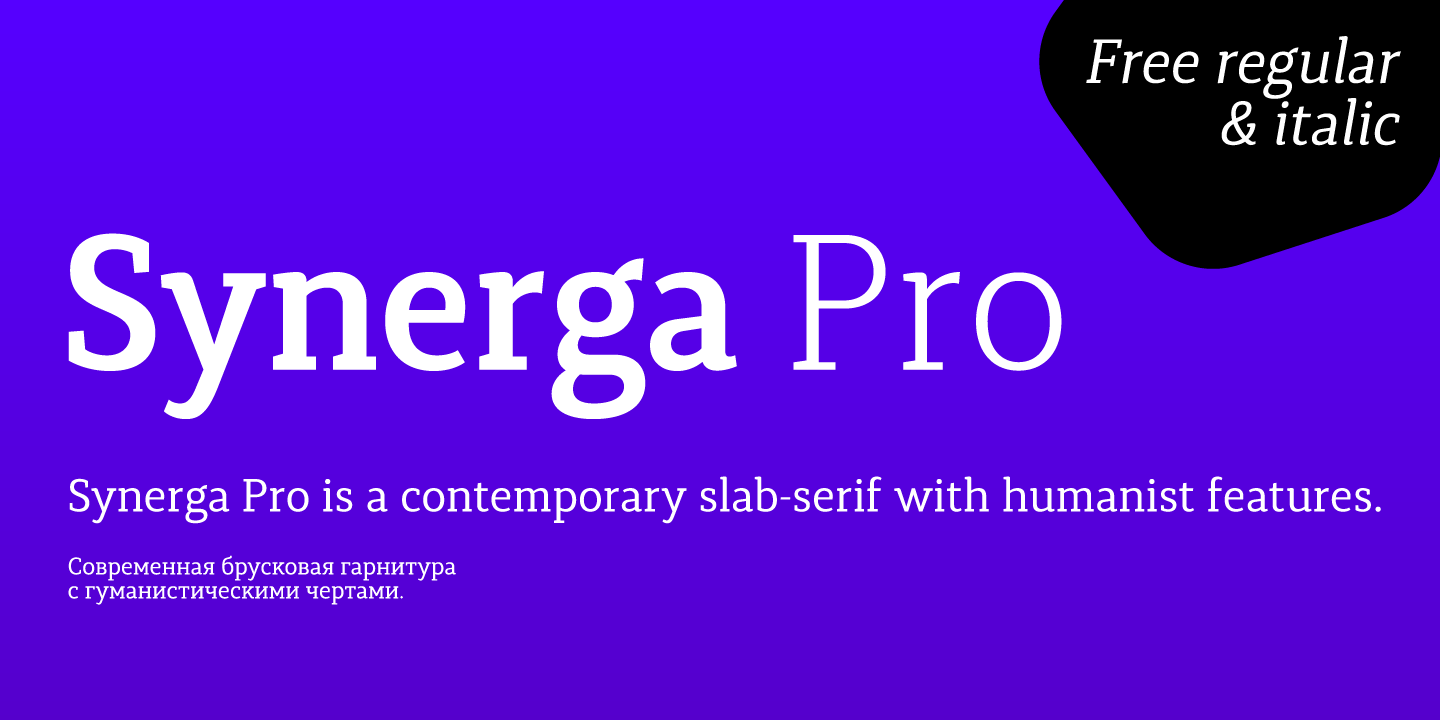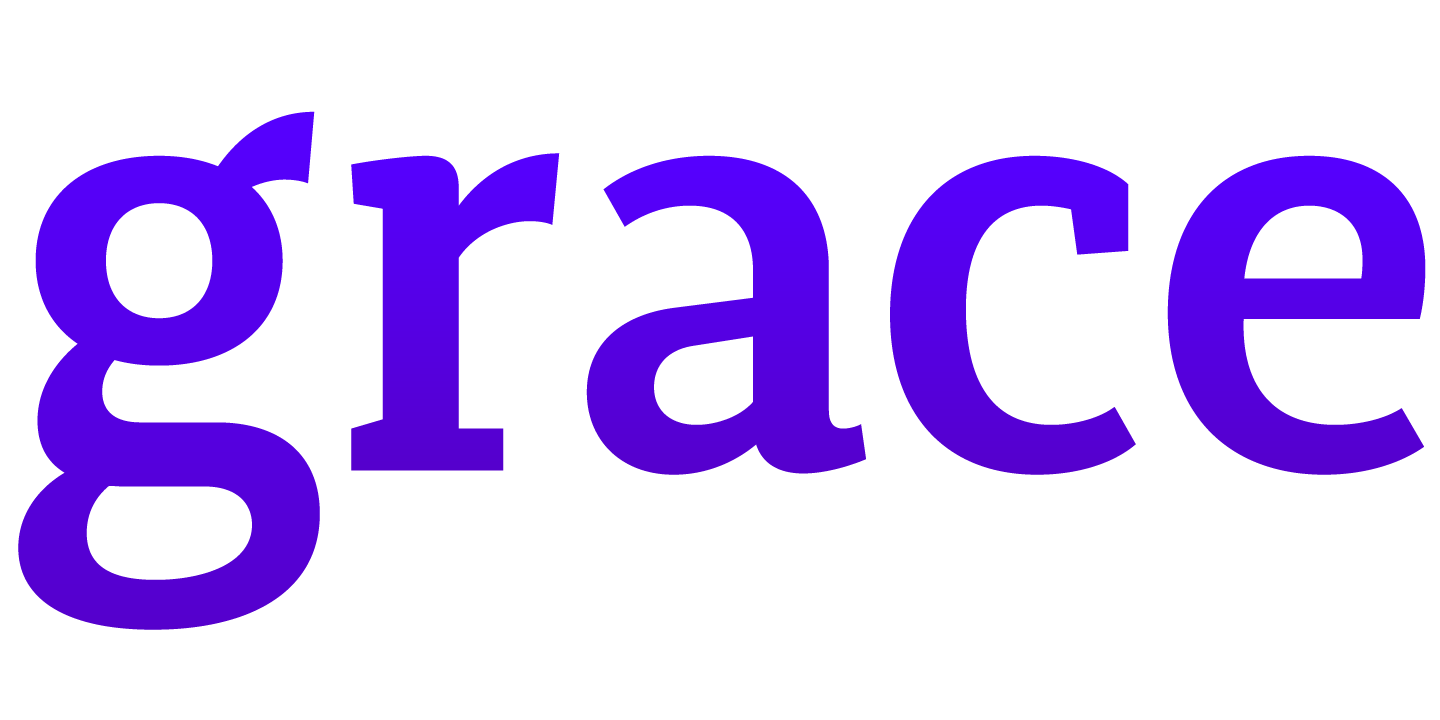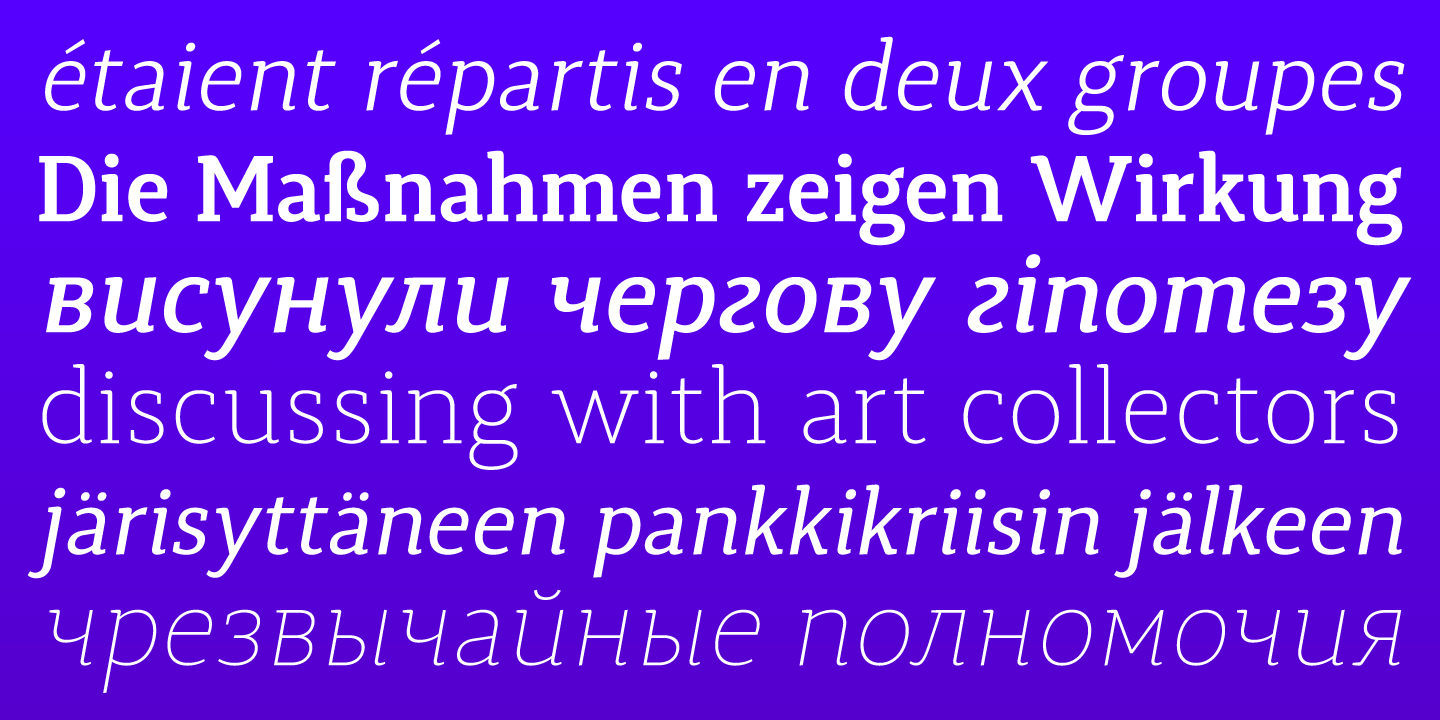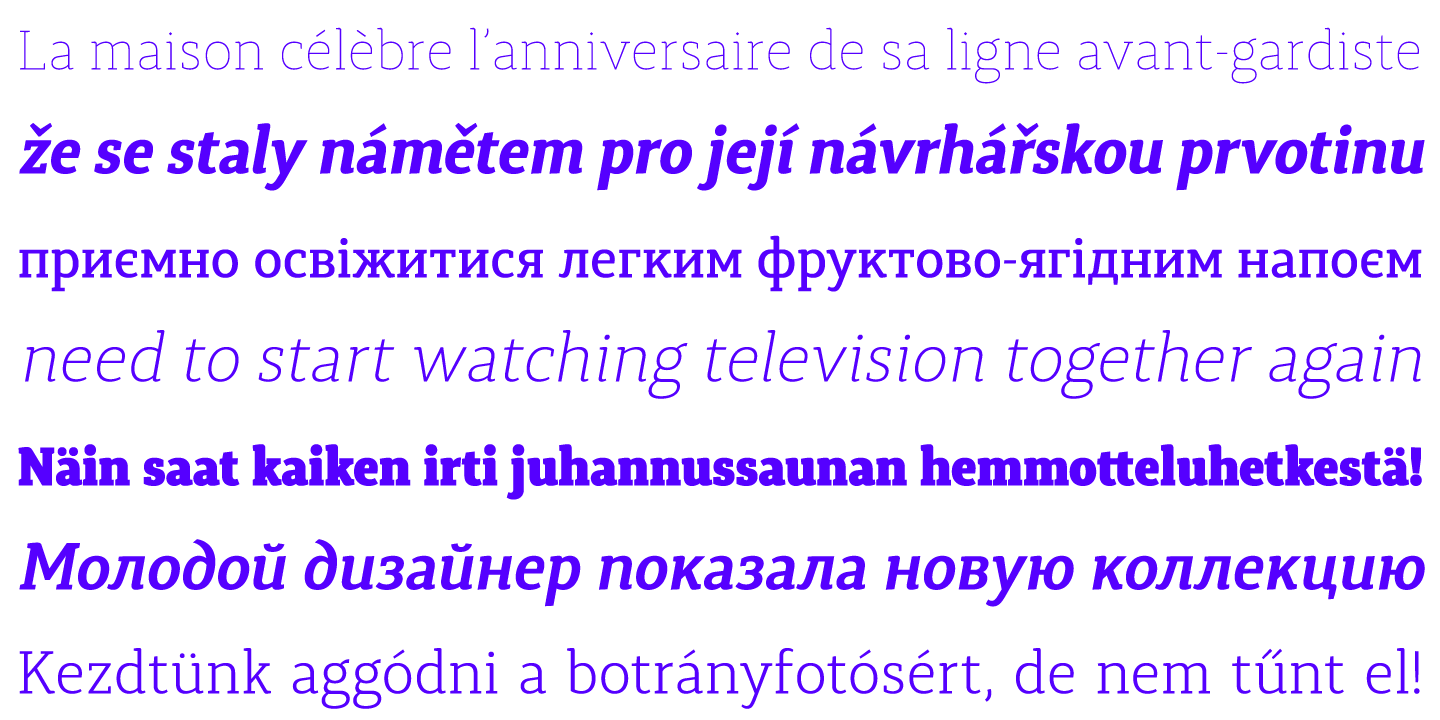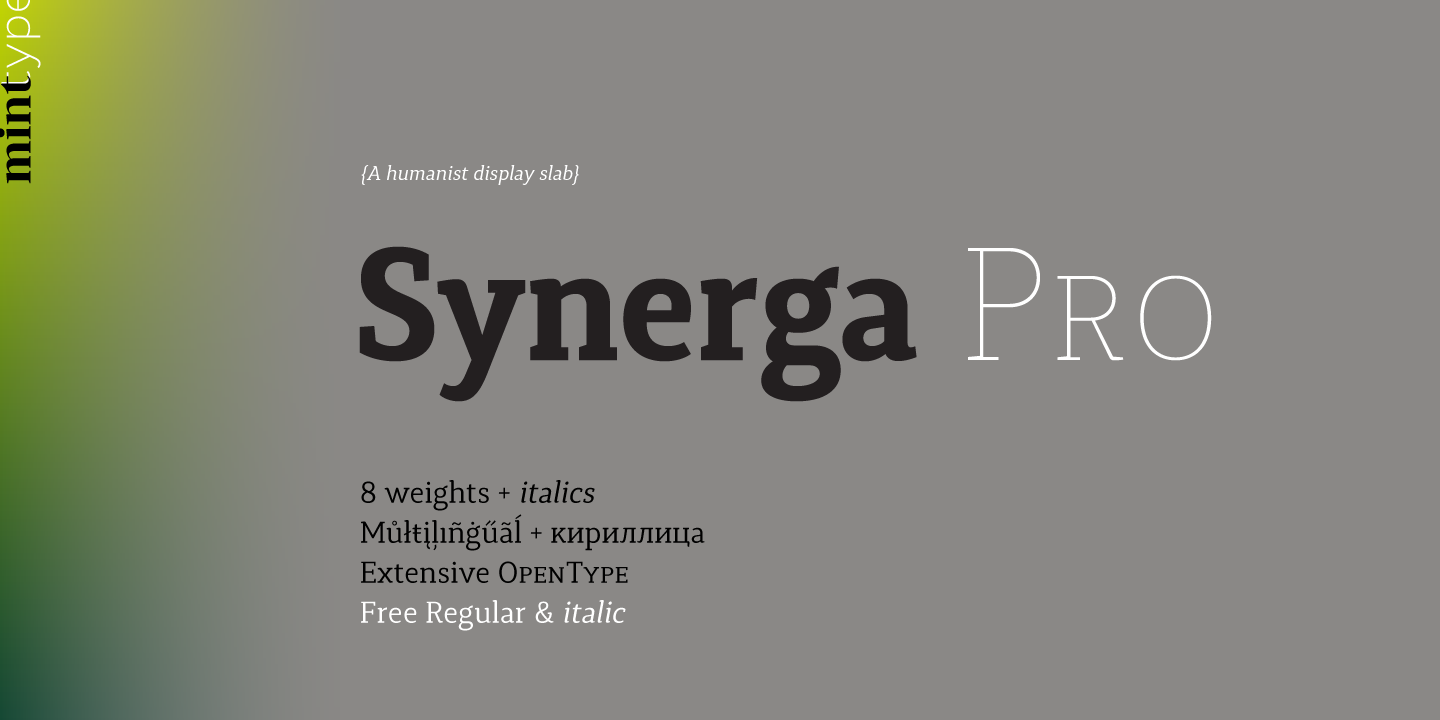
Synerga Pro
Synerga Pro is a contemporary slab-serif typeface with humanist features. In smaller text sizes it exposes the characteristics of its slab built, but as the size grows, lots of fine features become visible: rounded terminals, dynamic horizontal serifs, non-vertical endings of vertical serifs. Such details make Synerga Pro suitable for setting paragraph texts as well as large captions.
Synerga Pro is equipped with many OpenType features including 4 sets of digits, small caps and ordinals. The extensive language coverage includes most of the Latin-based languages, as well as major languages that use Cyrillic script.